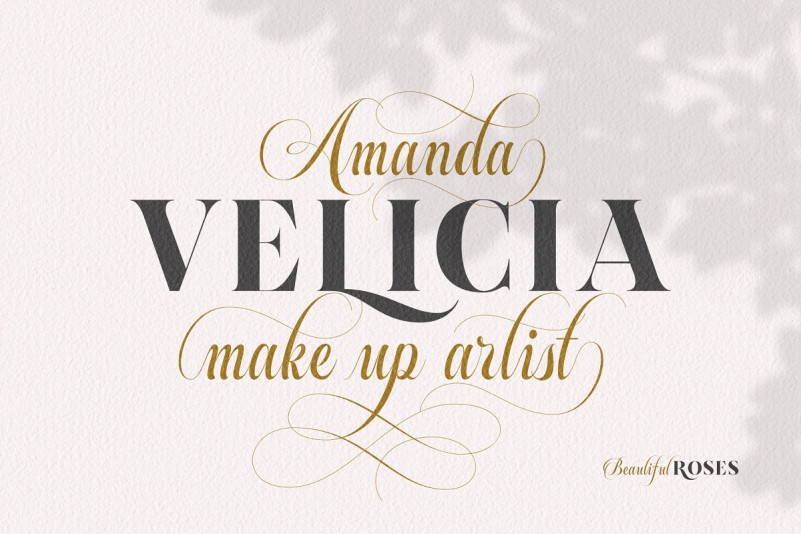
Beautiful Roses Font – Give your design a fresh look with the new elegant serif font. A lot of stylish alternates will give you a lot of variations for use. Beautiful Roses Font Duo designed and shared by Blankids Studio. A new duo font serif and script called Beautiful Roses. Beautiful Roses good for logotype, poster, badge, wedding invitation, book cover, tshirt design, packaging and any more.